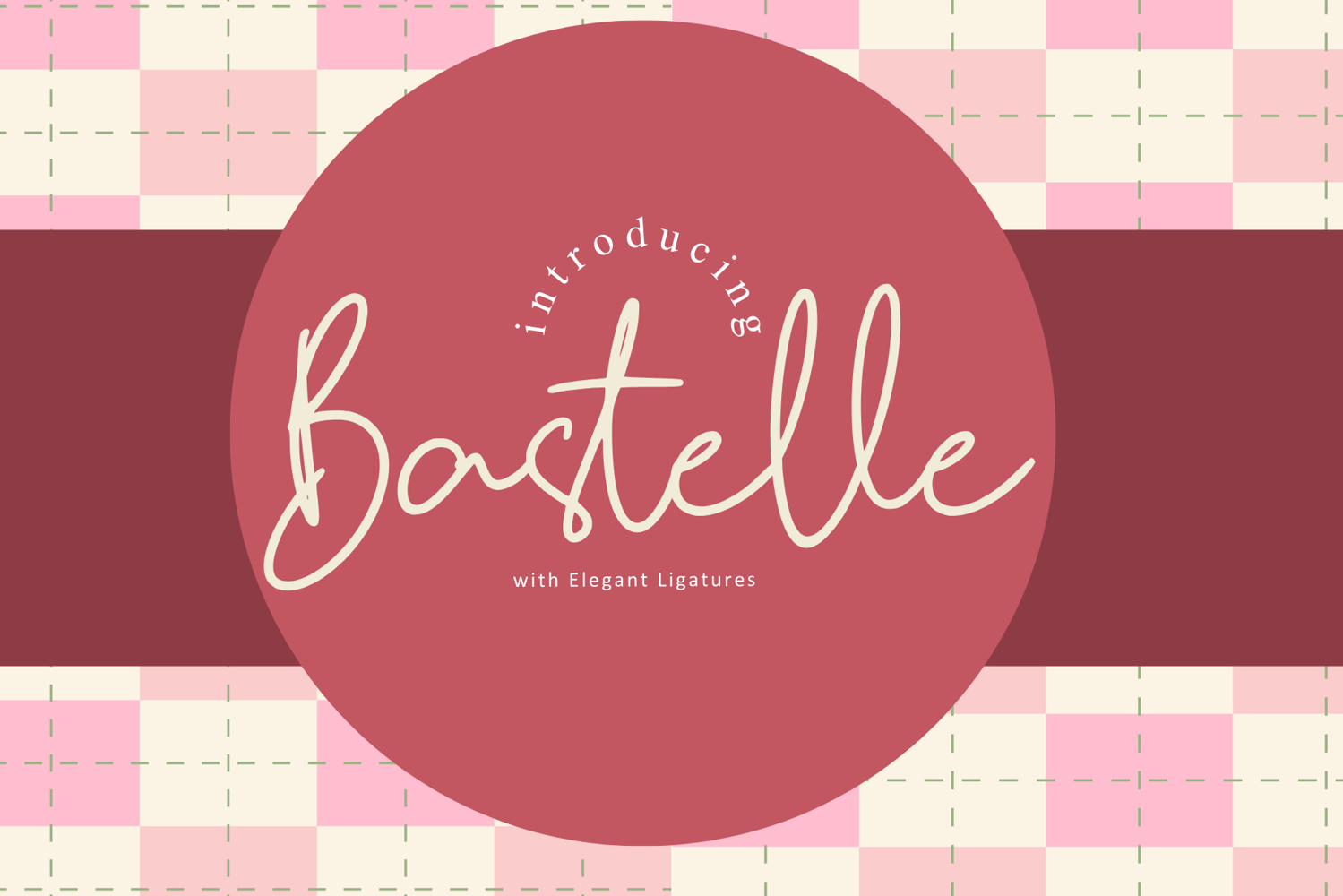
Bastelle
Bastelle is a modern monoline handwritten font designed with a smooth flow and elegant connections. Created to feel natural, soft, and stylish, Bastelle brings a warm handwritten touch that works beautifully for both individual and professional projects.
One of Bastelle’s key strengths is its rich ligature set, carefully crafted to create seamless letter connections and improve readability while adding speciality. The font flows effortlessly, making every word feel cohesive and visually pleasing.